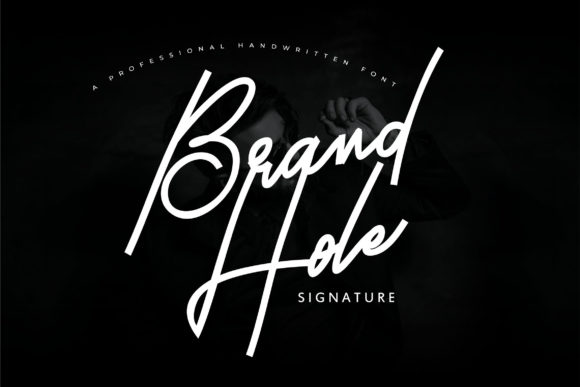
I still remember the frustration of working on a design project, hours spent crafting the perfect layout, only to hit a roadblock: finding the right font. My client wanted something modern, yet elegant; something that would make their brand stand out. I scoured the internet, tried countless fonts, but nothing seemed quite right. That was until I stumbled upon **Brand Hole**, a stunning and light handwritten font that instantly elevated my design.
An Honest Review of Brand Hole Font
- ✨ **Elegant and Modern**: Brand Hole has a cool, sophisticated feel that’s perfect for designs that need a touch of class.
- ✅ **Versatile**: This font works beautifully for both digital and print projects, from logos to social media graphics.
- 💡 **Easy to Read**: Despite its elegant feel, Brand Hole remains highly legible, even at smaller font sizes.
While Brand Hole is an excellent font, it’s not without its quirks. For instance:
- ⚠️ **Limited use of OpenType features**: While it does offer some basic stylistic alternates, don’t expect advanced features like ligatures or swashes.
- 🤔 **May not be suitable for very large or very small text**: Brand Hole shines in the 12-24pt range, but its elegance may be lost in extremely large or small sizes.
The Story Behind Brand Hole
While the origins of Brand Hole might be shrouded in mystery, it’s clear that its designer aimed to create a font that embodies both **sophistication** and **approachability**. Perhaps the designer, inspired by urban landscapes and modern art, sought to craft a font that feels both contemporary and timeless.
Q: What type of projects is Brand Hole best suited for?
A: Brand Hole is versatile and can be used for a wide range of projects, from **branding and logos** to **social media graphics** and **print materials**.
Q: Does Brand Hole support OpenType features?
A: Brand Hole offers basic OpenType features, including **stylistic alternates**, but it may not have advanced features like ligatures or swashes.
Q: Is Brand Hole suitable for body text?
A: While elegant and legible, Brand Hole is best used for **headings and titles**. For body text, consider a more traditional font for better readability.